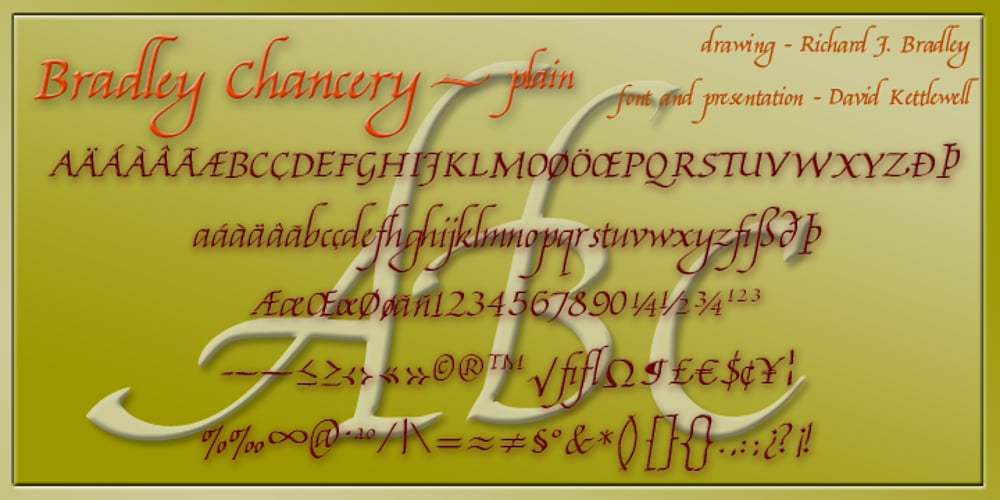
Bradley Chancery
Bradley Chancery font
Bradley Chancery Font Family was designed by Richard Bradley and published by New Renaissance Fonts. Bradley Chancery contains 8 styles and family package options. A new font in the Humanistic tradition, for letters, poetry, display graphics – and just to make the everyday more elegant. This family of fonts has four members: the basic plain font has regular and bold weights, and each of those has its swash variant (labelled ‘italic’) which you can use to replace single letters giving a dash of spice at the beginning or end of a word, phrase or line. Of course you *can* use the swash forms together, but it’s a pretty stressful effect and that’s not our idea! Richard Bradley writes: My inspiration for this font was the wonderful Humanistic Cursive writing of such 15th and 16th century Italian writing masters as Giambattista Palatino and Giovanantonio Tagliente as well as Bartholomew Dodington, who, as Regius Professor of Greek at Cambridge University wrote Latin, Greek and other languages in a singularly beautiful example of the Italian cursive style. The letters were written using a Parker Frontier fountain pen fitted with the excellent Parker bold italic steel nib. I wrote the letters on old computer print-out paper with regular bands across it. The x-height (the height of a, c, e etc) is two-thirds of the capital height, with rather long ascenders (b, h) and descenders (g, y), following the proportions of the original writing in the early manuscripts and emulating the fine writing of those wonderful early scribes. We trust that this font will prove useful to folk for a wide variety of typographic needs in its bold and regular weights and the with added extra Swash font, which again follows the early masters, in adding extra flow and decoration to any wording set in this new font. I wanted to make available a hand-written font in that style for use today using the modern digitising process which was completed by David Kettlewell from my scans of the original hand-written letters. While the capitals are only 50% higher than the lower-case letters in this style, the ascenders and descenders are much longer than is normal in other styles. We have set the the space between the lines (the ‘leading’, traditionally marked by pieces of lead) so that the lines don’t run foul of one another, but depending on how much text you set in this type and how it sits, you might choose to set the lines closer together in your word processor, layout, or graphics programme. Instead of swash variants of the numbers, there is a selection of ornaments. There is a video to show how you might use the swash capitals and finals, as well as more examples at New Renaissance Fonts.